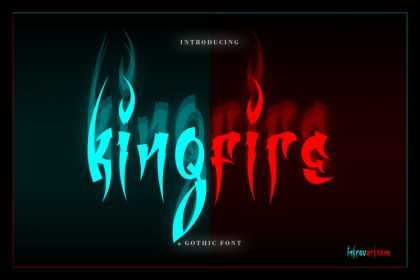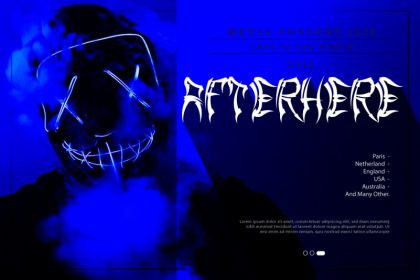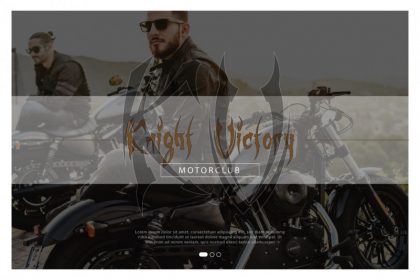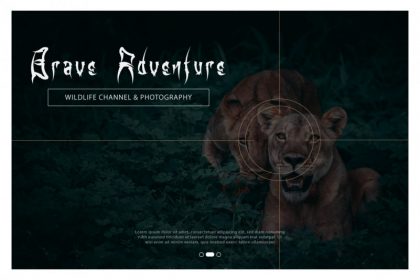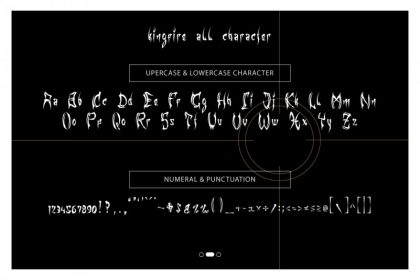
Kingfire Display Font is inspired by a burning passion and brings its own unique style to every design project. This typeface is best for headers of horror films, novels, and even suitable for motorcycle club logos or wildlife magazines. Be it for the web, printing or whatever – Kingfire font will look spectacular.
Features :
– Upercase & lowercase
– Numeral & punctuation